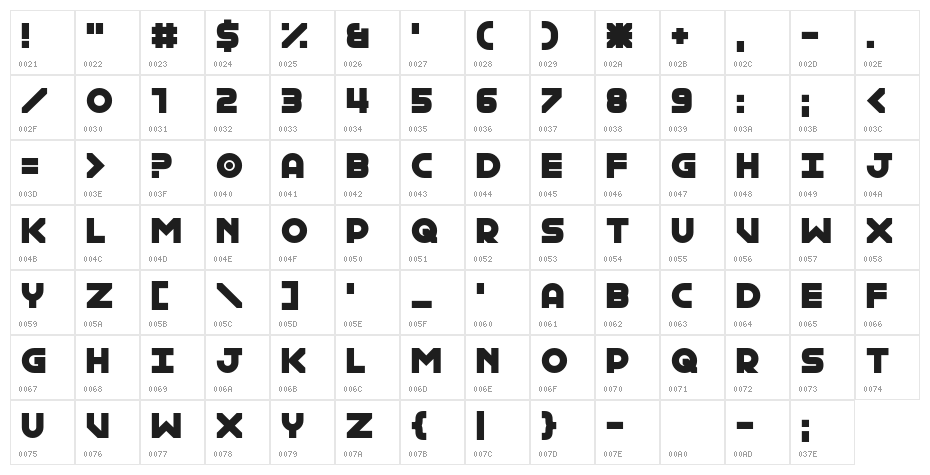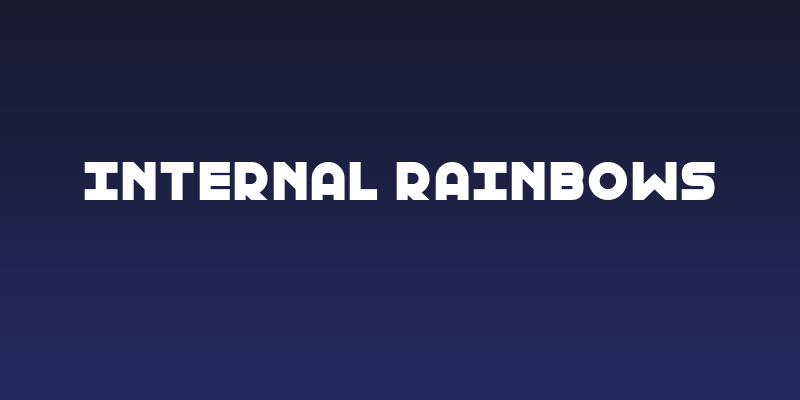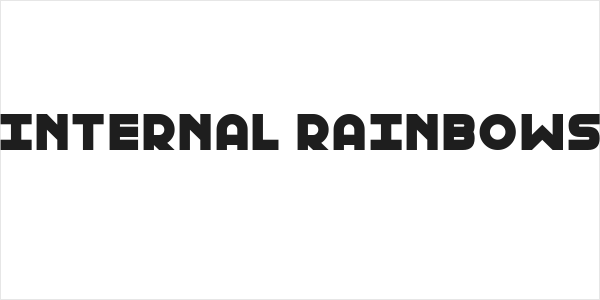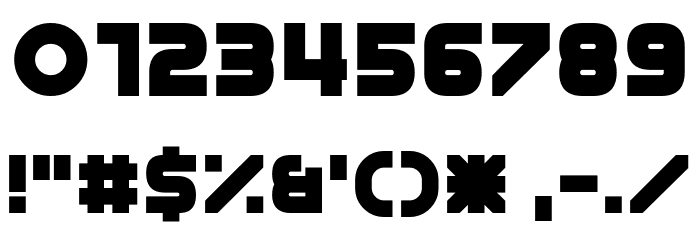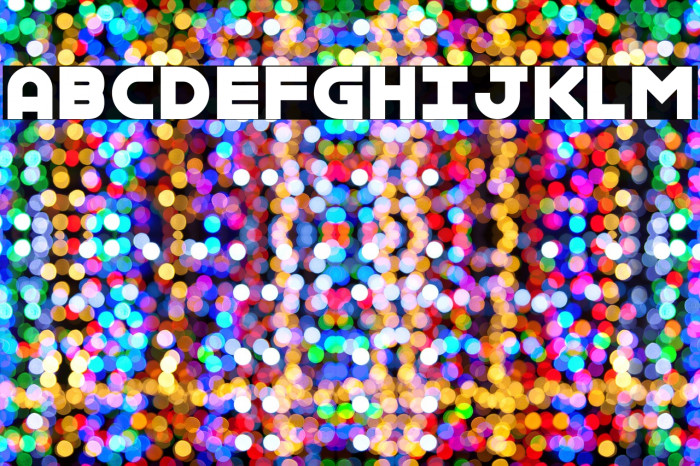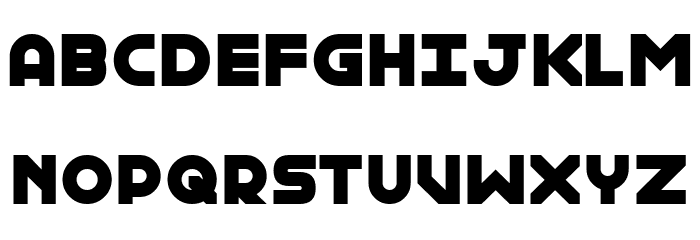
Internal Rainbows Font
Internal Rainbows Description
This font features a bold and geometric design with strong, angular lines and a modern aesthetic. The characters are uniformly thick, providing a sense of stability and strength. The uppercase letters are particularly striking, with a blocky appearance that commands attention. The numbers and special characters maintain this bold style, ensuring consistency across all elements. The font's design is clean and uncluttered, making it suitable for a variety of applications where clarity and impact are desired.